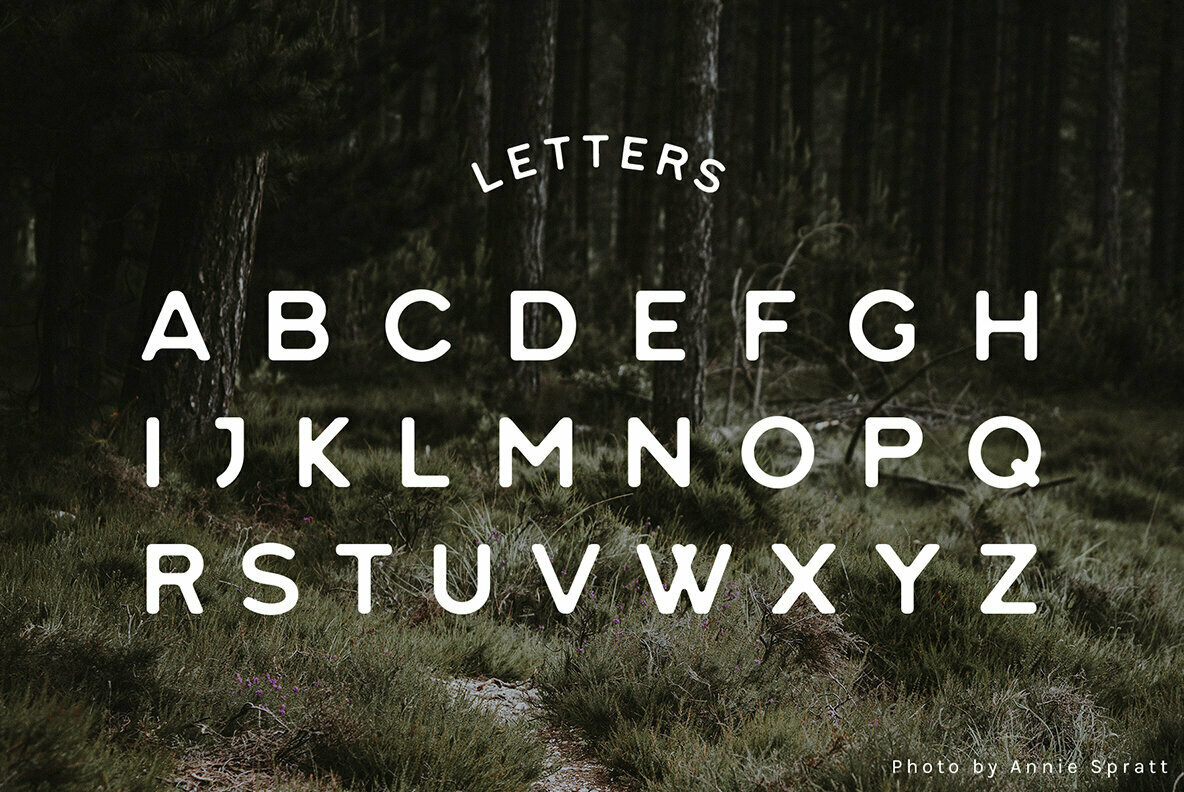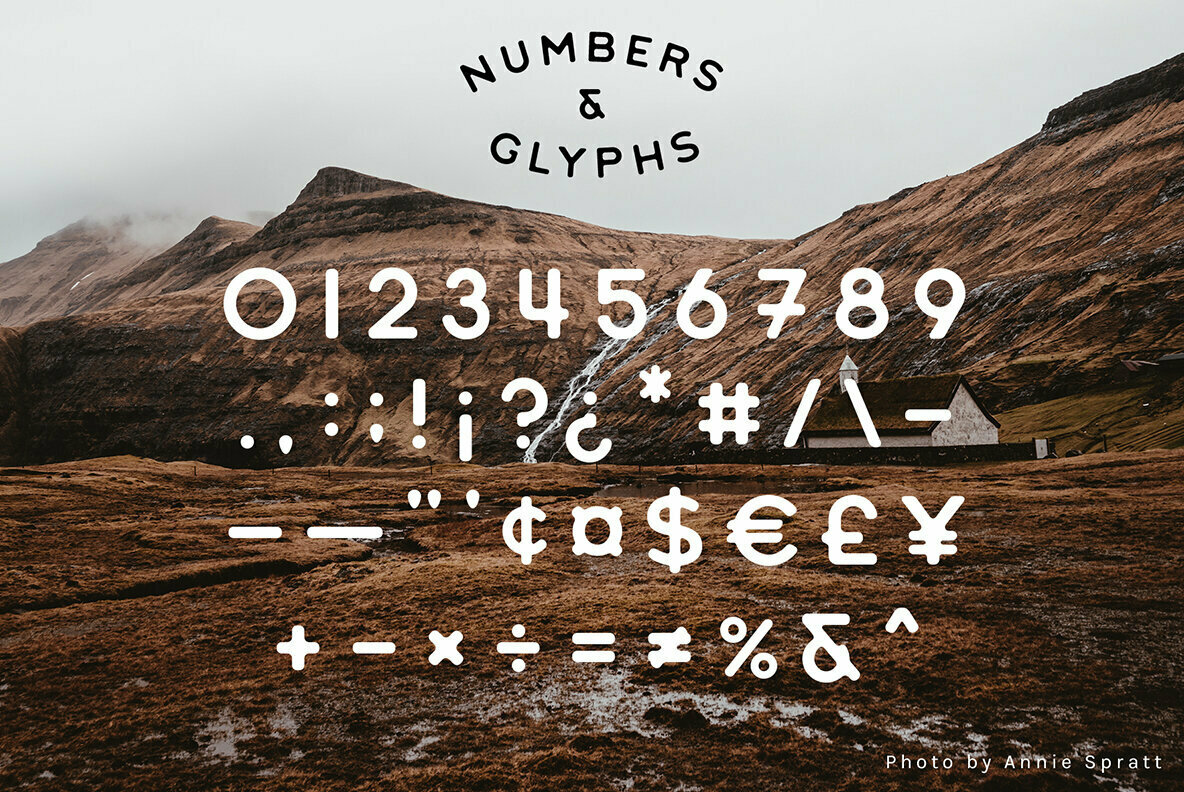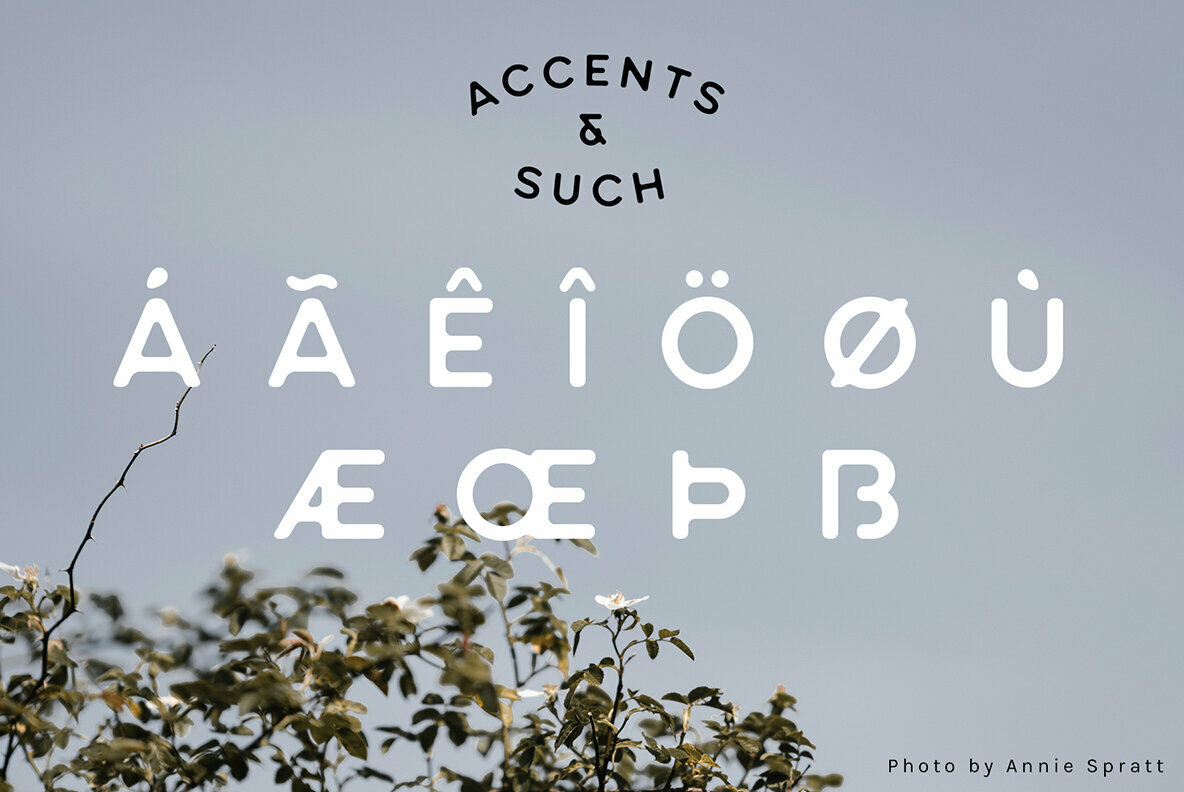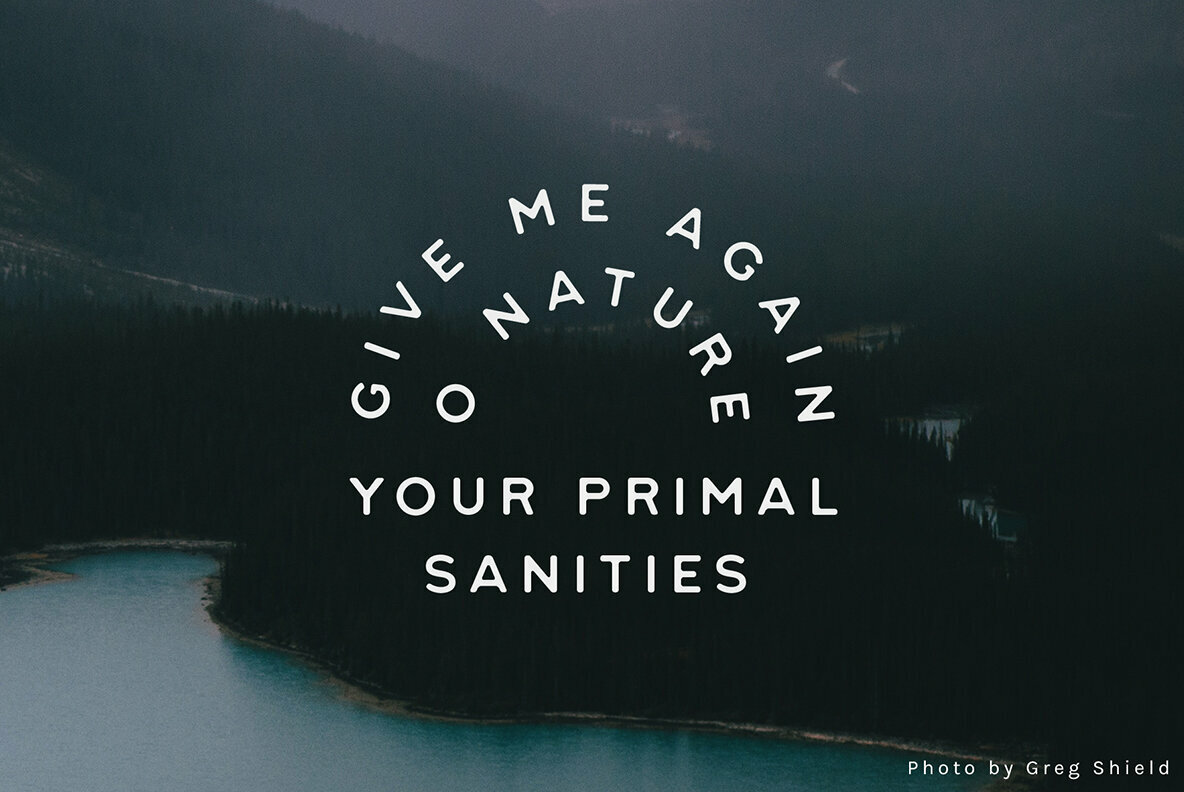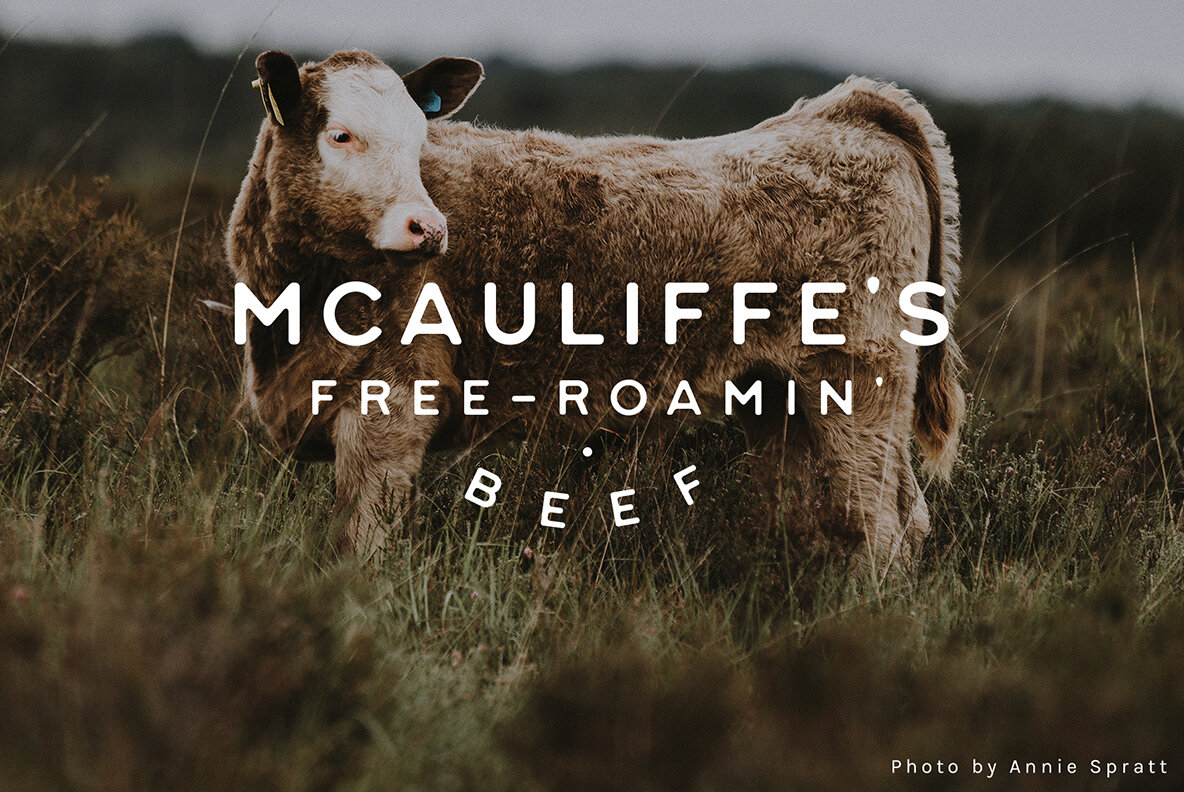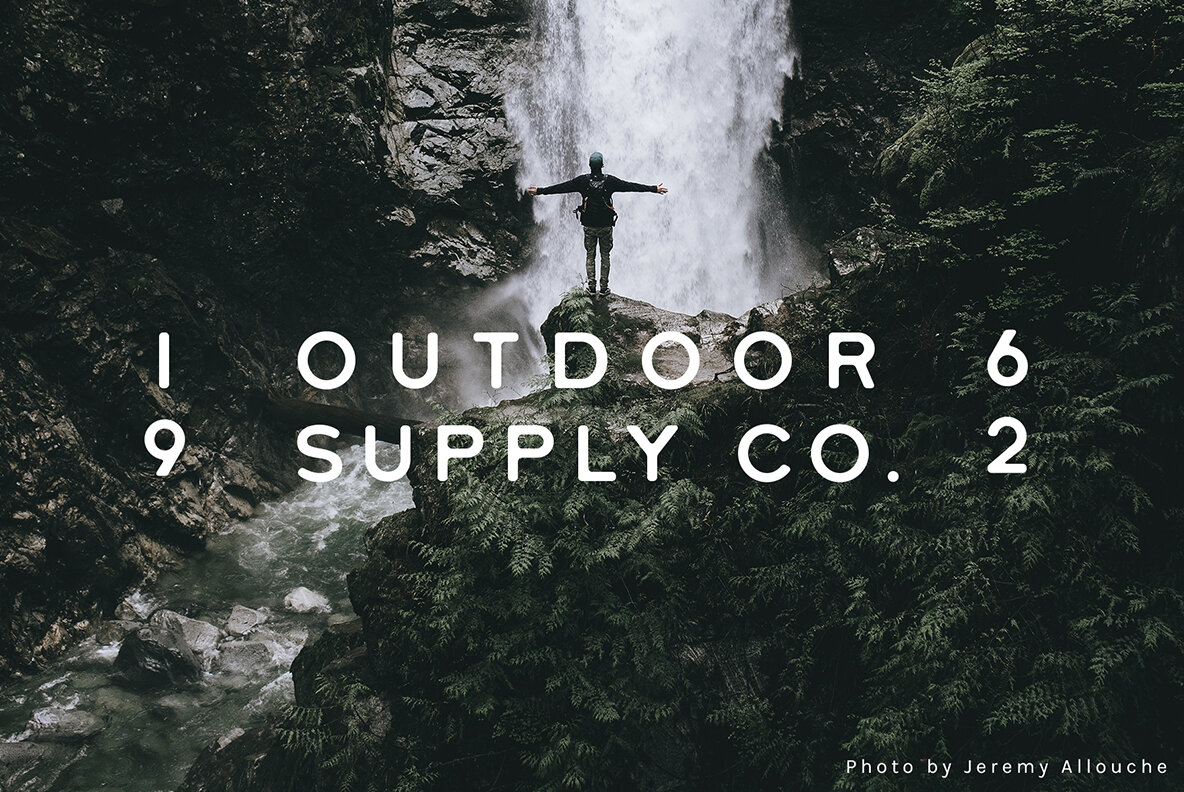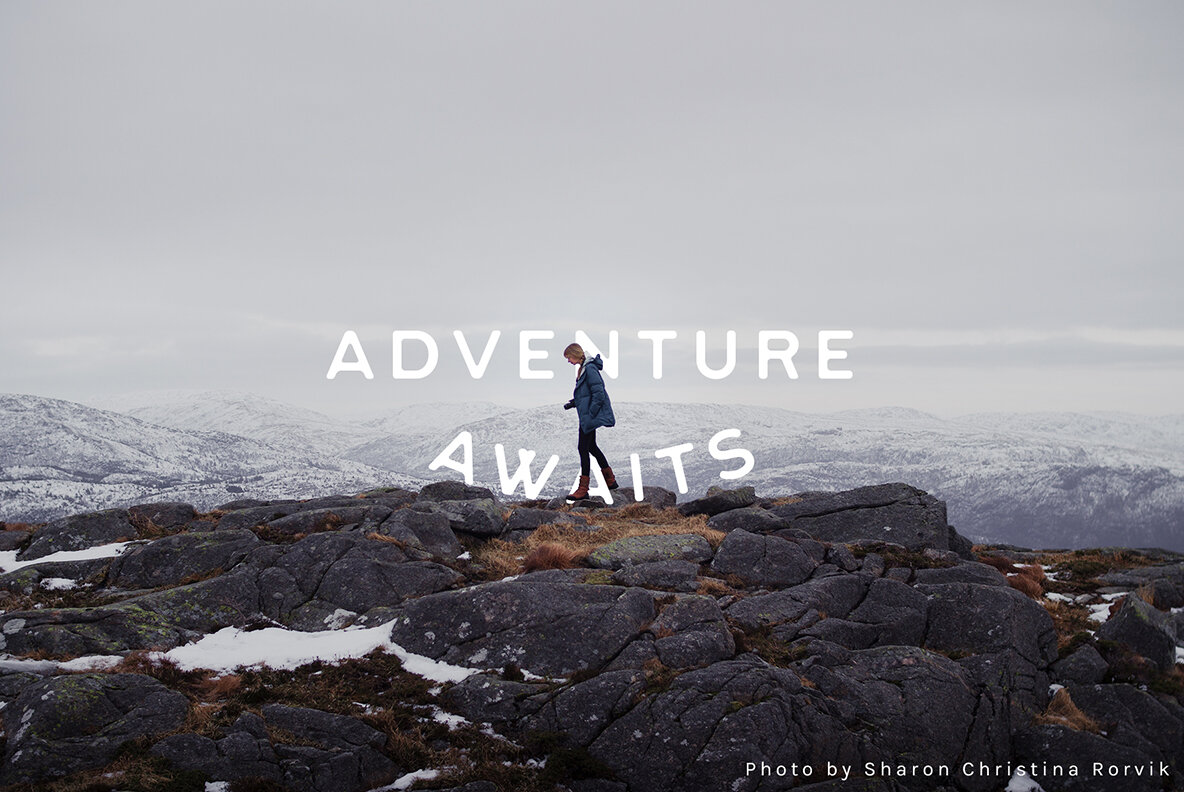
Heart of the Land Font
Heart of the Land Regular
A vintage, hand-drawn font meant for a wide array of materials, but specifically the outdoors, travel, natural products, and healthy, humane food. The edges of this beauty are smoothed out to give the type a stamp-like feel.